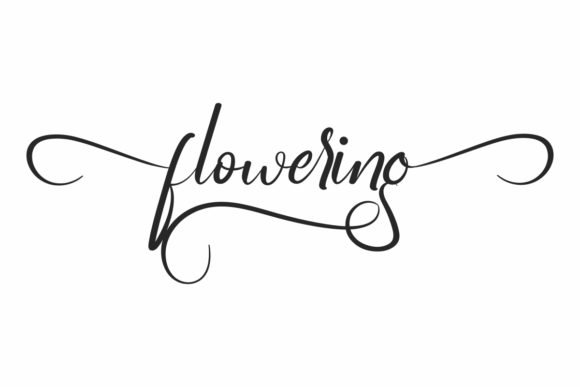
Unlock the Beauty of Handwritten Design
Have you ever been stuck trying to find the perfect font for a special project, only to feel like your ideas are as dry as a barren garden? For many designers, the search for the perfect font can be a frustrating and time-consuming process. But what if I told you that there’s a font that can bring your designs to life with its unique and elegant handwritten style?
Enter the Flowering Font, a beautiful and versatile font that’s perfect for adding a personal touch to your designs. Whether you’re creating wedding invitations, thank you cards, or logos, this font is sure to impress. And with its PUA encoding, you’ll have access to all of the glyphs and swashes you need to create stunning designs. As a designer, you know how valuable a great font can be – and the Flowering Font is definitely one to consider.
Key Features of Flowering Font
- Unique Characteristic: The font features intricate, hand-drawn floral designs and ornaments, making it ideal for creating visually striking and elegant typography.
- Language Support: The font supports a wide range of languages, including Latin, Cyrillic, and Greek alphabets, making it suitable for use in various cultural and linguistic contexts.
- Ornamentation: The font includes a range of ornaments and flourishes, allowing users to add decorative elements to their designs and create unique, eye-catching typography.
- Professional Usage: The font is designed for professional use, making it suitable for use in high-end design projects, such as luxury branding, fine art, and high-end publishing.
Flowering Font Review
As a designer, I was excited to dive into the Flowering Font and see what it had to offer. Overall, I was impressed with the unique aesthetic and playful feel that this font brings to the table.
- ✨ Unique design: The Flowering Font’s intricate details and curved lines make it stand out from more traditional fonts.
- ✨ Versatile: This font can be used for a variety of projects, from digital designs to print materials.
- ✨ Customizable: The font’s intricate details can be adjusted to fit the needs of your project.
- ⚠️ Limited legibility: In certain sizes or when used in smaller contexts, the Flowering Font can become difficult to read.
- ⚠️ Not ideal for body text: Due to its intricate design, this font is better suited for headings or titles rather than large blocks of body text.
Overall, the Flowering Font is a great choice for designers looking to add some personality to their projects. While it may not be the most practical choice for every project, its unique design and versatility make it a valuable addition to any font collection.
To get the most out of the Flowering Font, use it for decorative titles, headings, and quotes. You can also use it to create a sense of whimsy and playfulness in your designs. Some common use cases include wedding invitations, baby shower invitations, and social media graphics.
Q: Can I customize Flowering Font to fit my specific design needs?
Yes, Flowering Font is designed to be highly customizable. You can adjust the font’s size, color, and spacing to fit your specific design needs. Additionally, you can also use the font’s built-in features, such as ligatures and swashes, to add an extra layer of personality to your design.